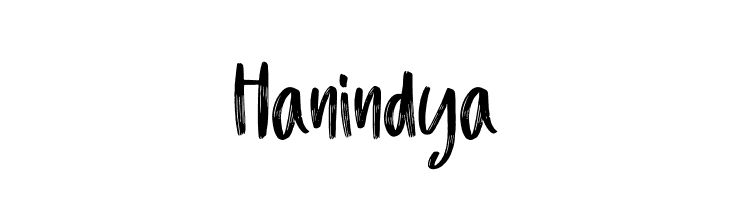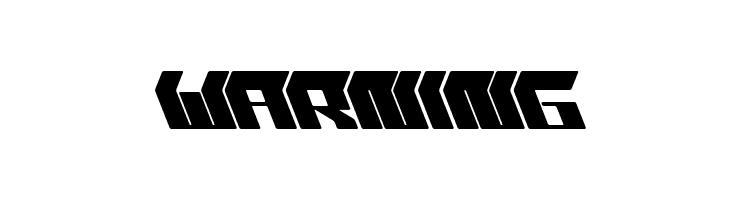
An elegant, flowing script font with ornate uppercase and graceful lowercase letters.
A classic serif font with modern elements, offering clarity and elegance.
Elegant serif font with a subtle italic slant and moderate stroke contrast.
Elegant cursive font with a slight slant and medium contrast.
A bold serif font with strong strokes and a classic design.
A dual-style font combining decorative geometric letters with a clean sans-serif typeface.
A bold, modern sans-serif font with clean lines and balanced spacing.
A bold, brush-style font with a hand-drawn, energetic appearance.
A bold, futuristic font with sharp angles and a geometric structure.
A bold, dynamic font with sharp, angular edges and a brush-like style.